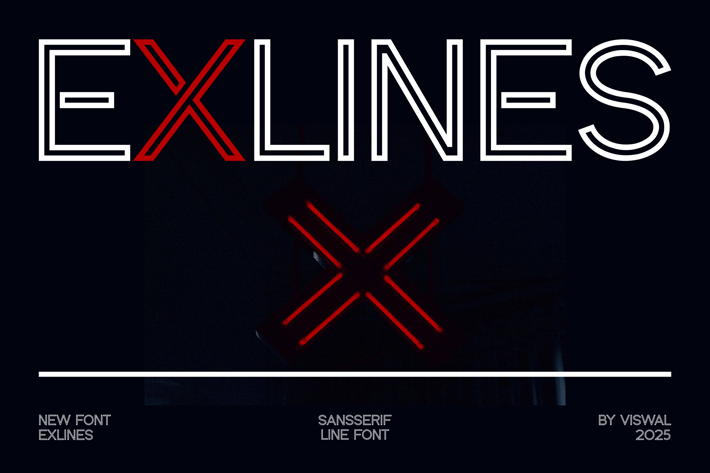
Exlines - Modern Line Font
Presenting Exlines Is A Line Font.
Can Make It Easier To Convey The Message In Your Design. Font Is Suitable For Logo, Labels, Badge, Branding, Magazine, Poster, Title, Gigs, Covers And Etc. Our Fonts Have Uppercase & Lowercase, Numeral & Punctuation, And Opentype Features. For Amazing Designs You Can Mix With Other Fonts As A Complement.